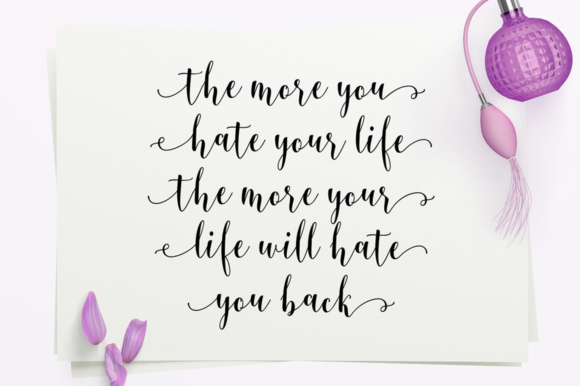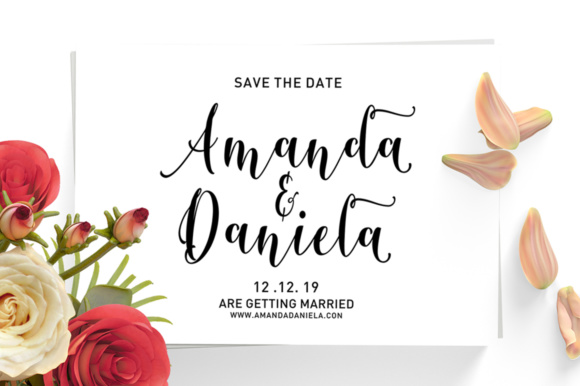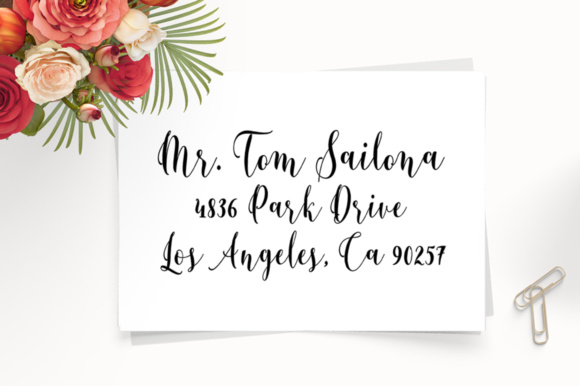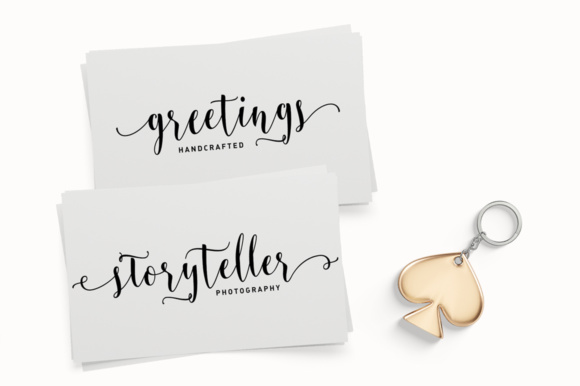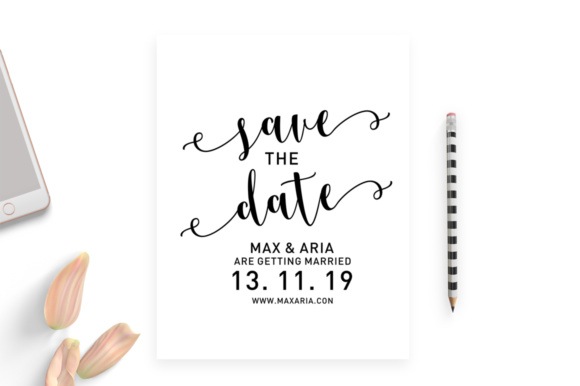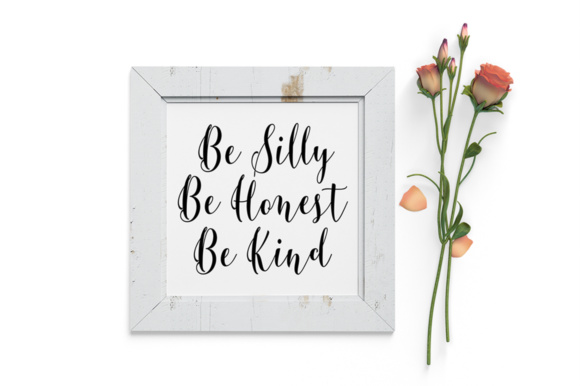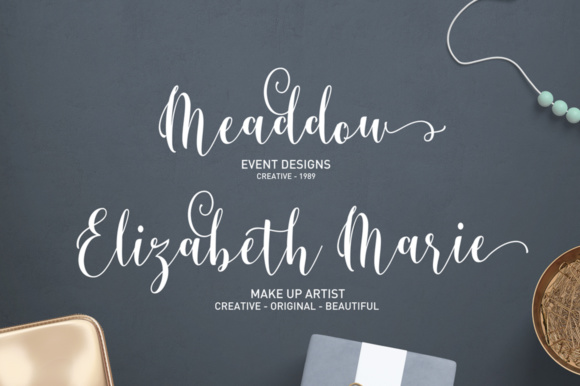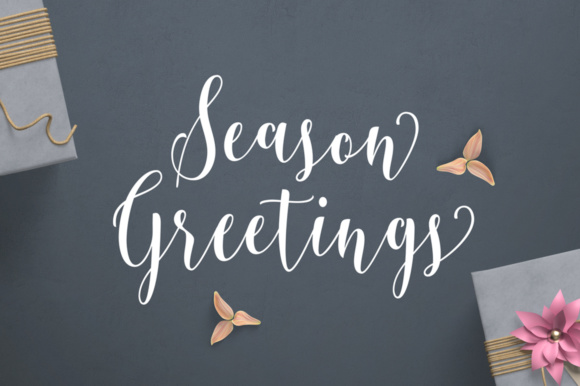
Berthilda Script Font
About Berthilda Script Font
Say hello to Berthilda Script – A contemporary calligraphy with a vintage feel. It has a calligraphy style with a moving baseline and an elegant touch that makes the font look fabulous! Can be used for various purposes such as headings, signatures, logos, wedding invitations, t-shirts, letterheads, signage’s, labels, news, posters, badges and much more!